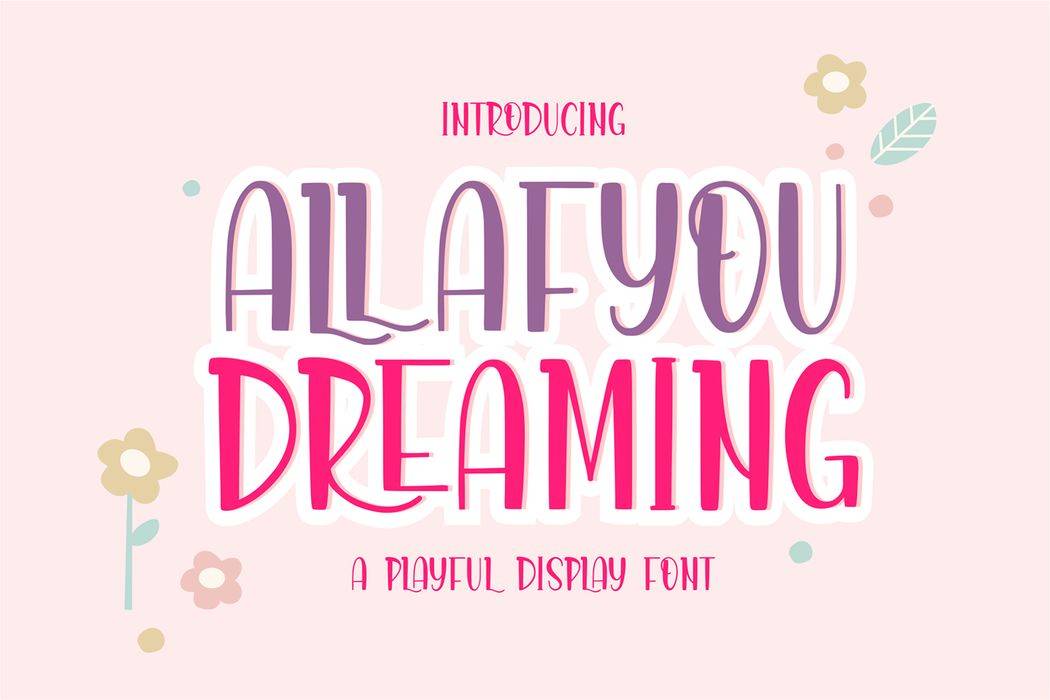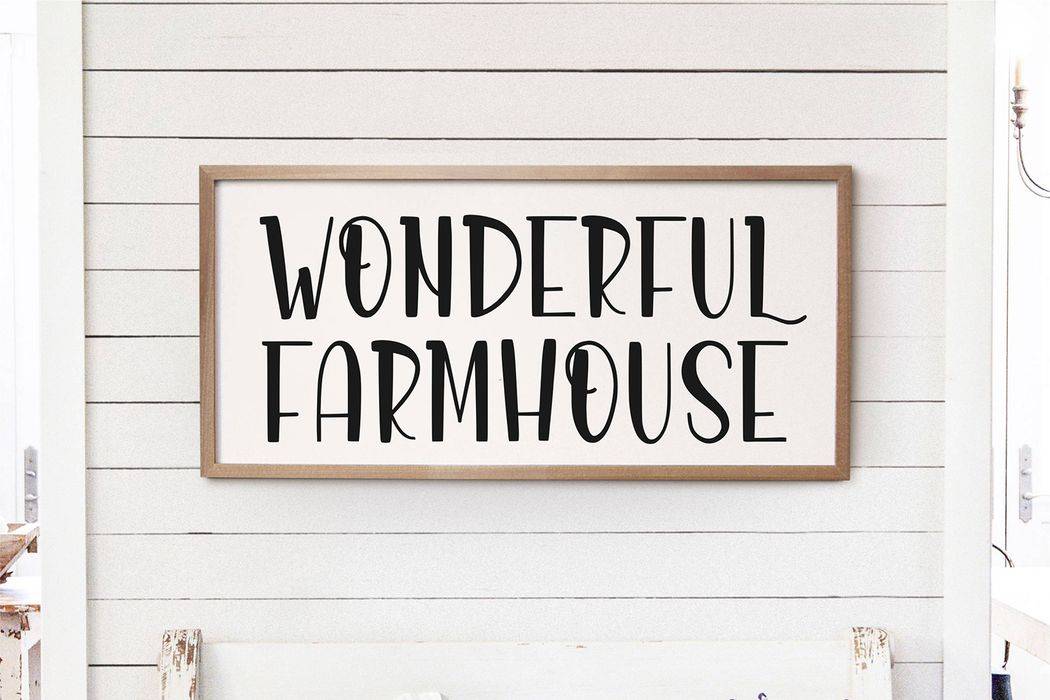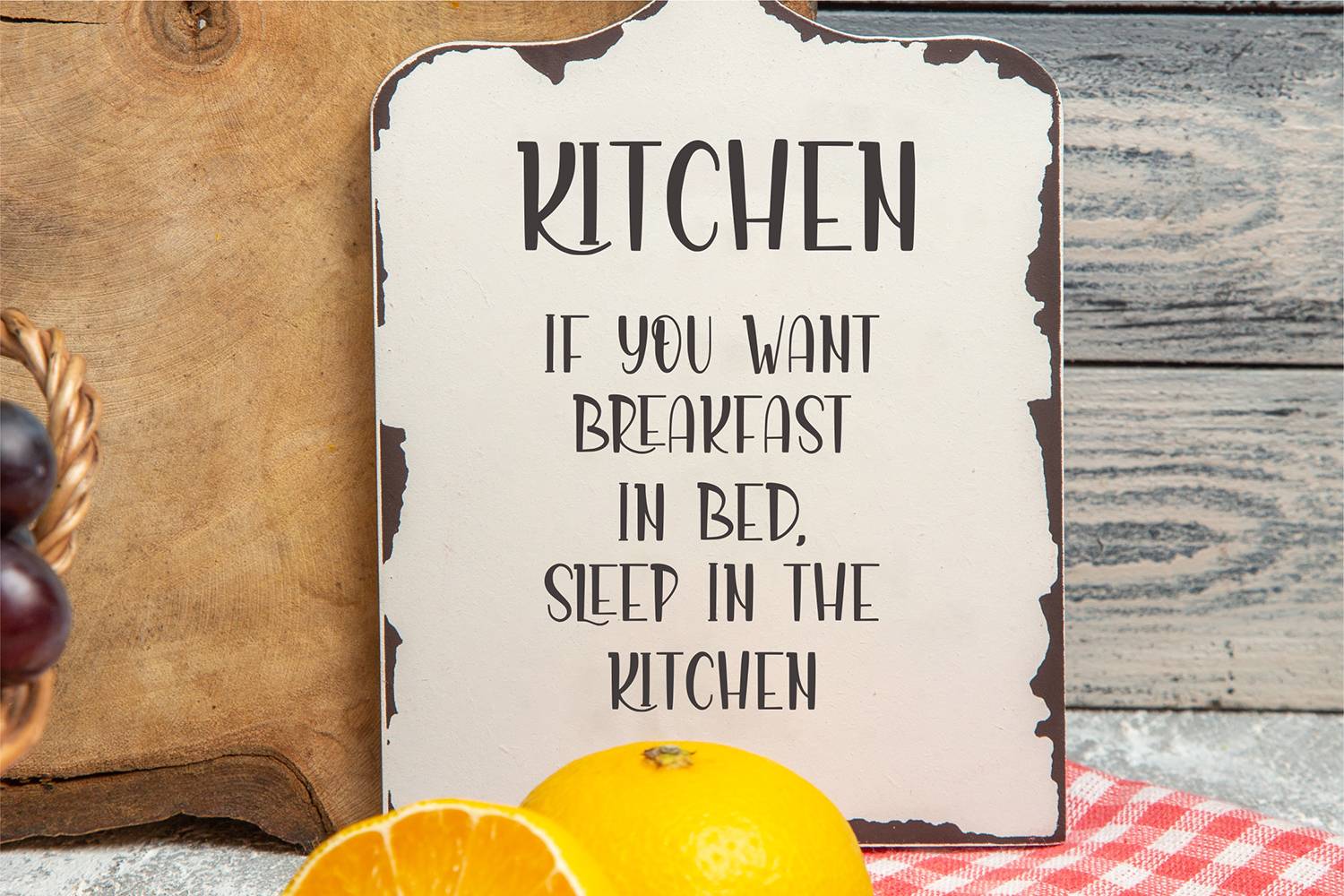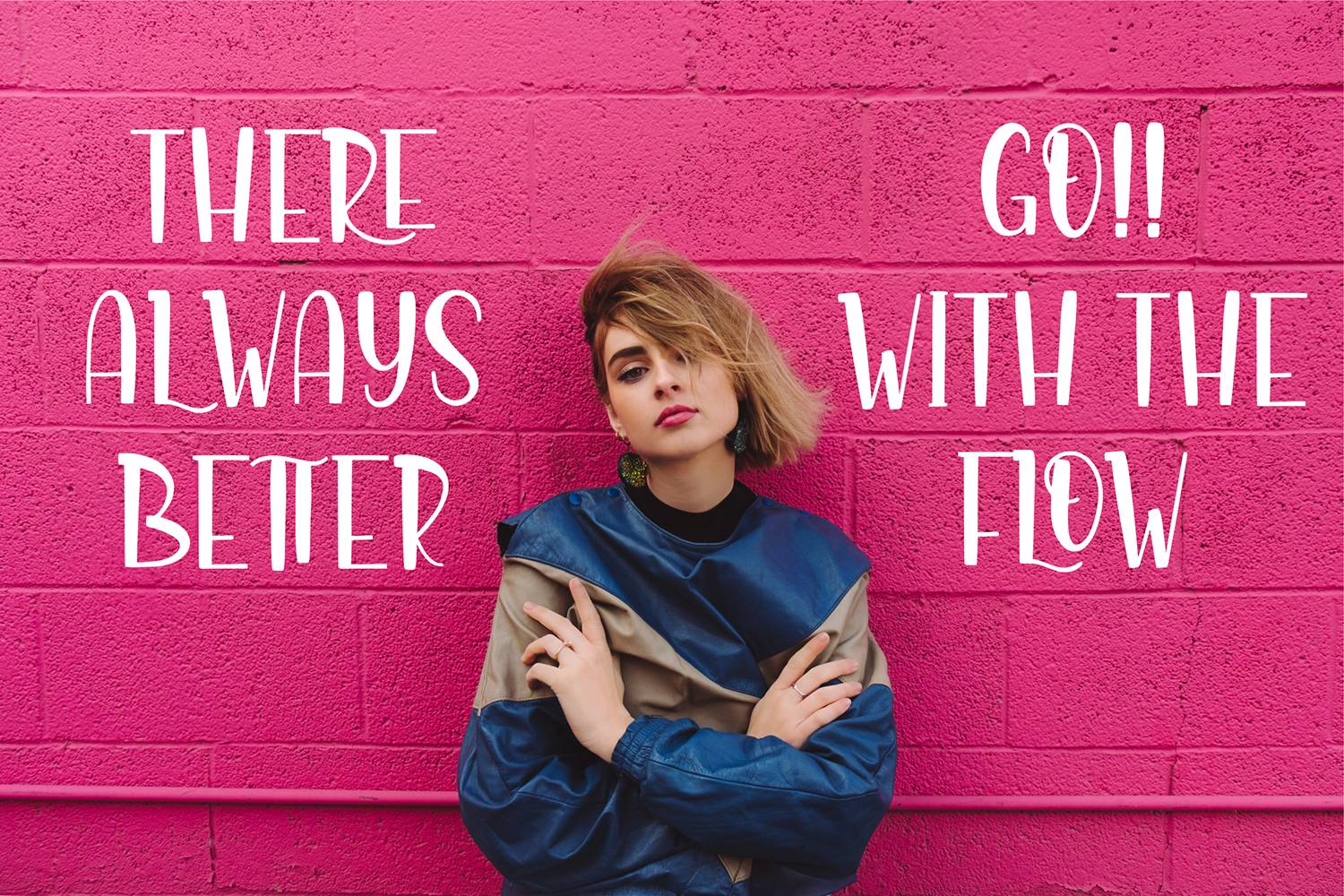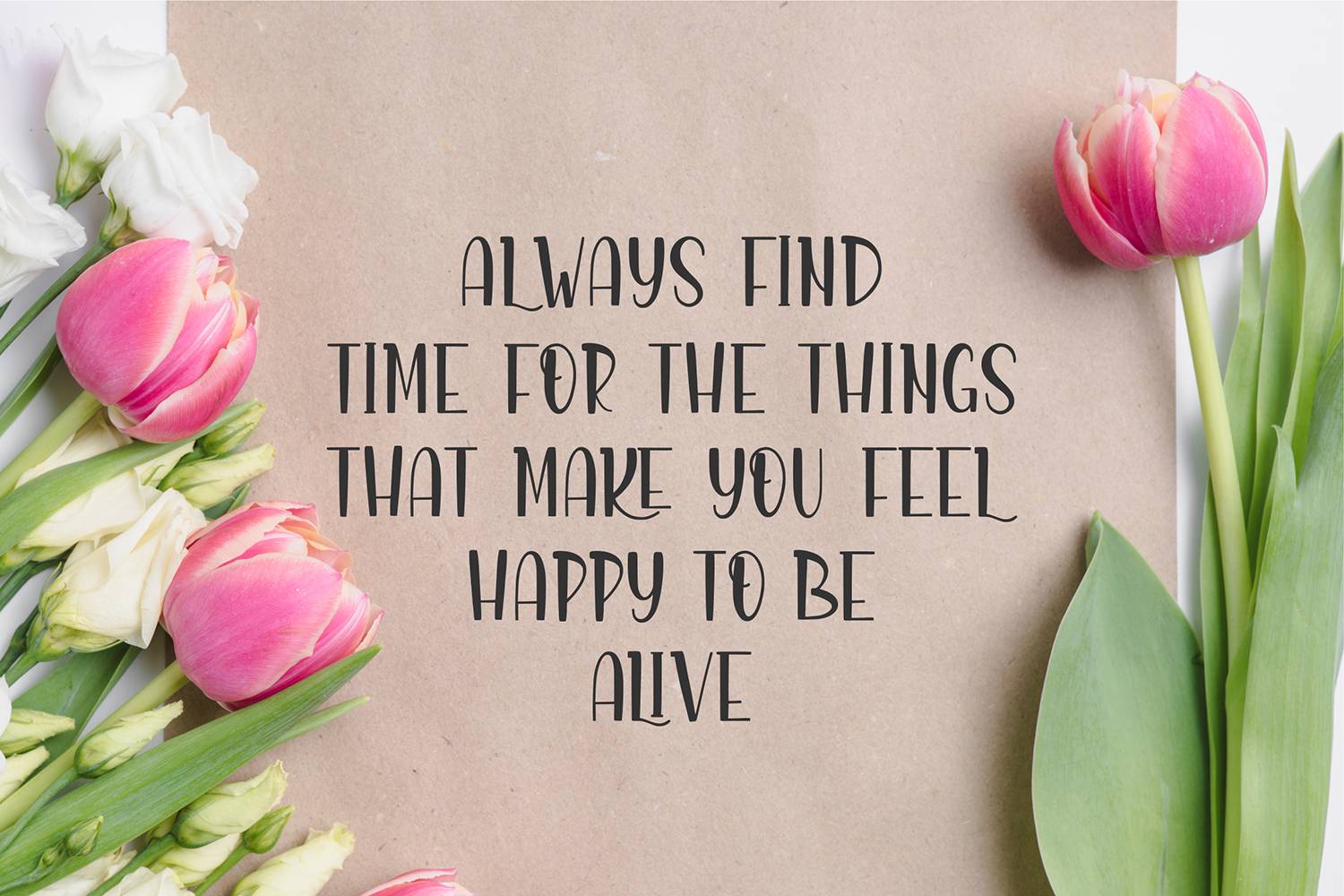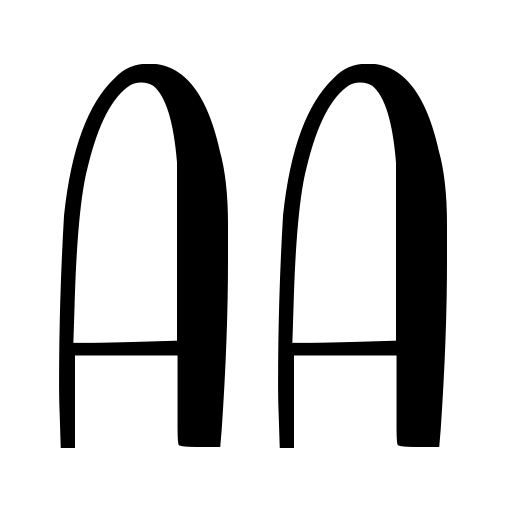
Allafyou Dreaming is a whimsical sans serif font characterized by tall, narrow letterforms with a playful and slightly quirky feel. Its delicate strokes vary subtly in thickness, featuring unique swashes and curls that give it a hand-drawn, artistic vibe perfect for creative and imaginative branding. This font works especially well for invitations, logos, and playful editorial projects where a lighthearted yet distinct personality is desired.
Allafyou Dreaming Font